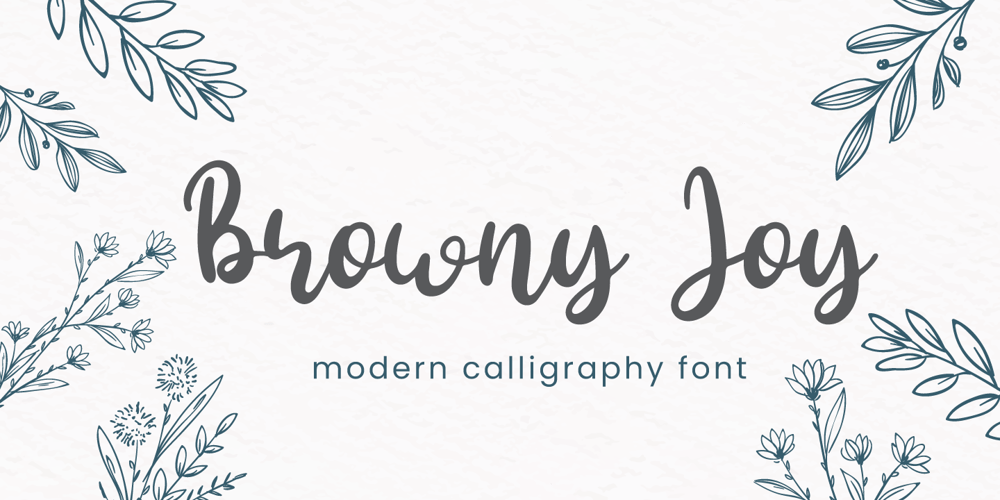
Browny Joy Font Family was designed by Fadli Ramadhan Iskandar and published by Attype Studio. Browny Joy contains 1 styles and family package options. Browny Joy is lovely modern calligraphy font inspired by beauty natural handwriting What’s included:- Browny Joy.otf- Multilingual Support—Hope you enjoy with our font!Attype Studio